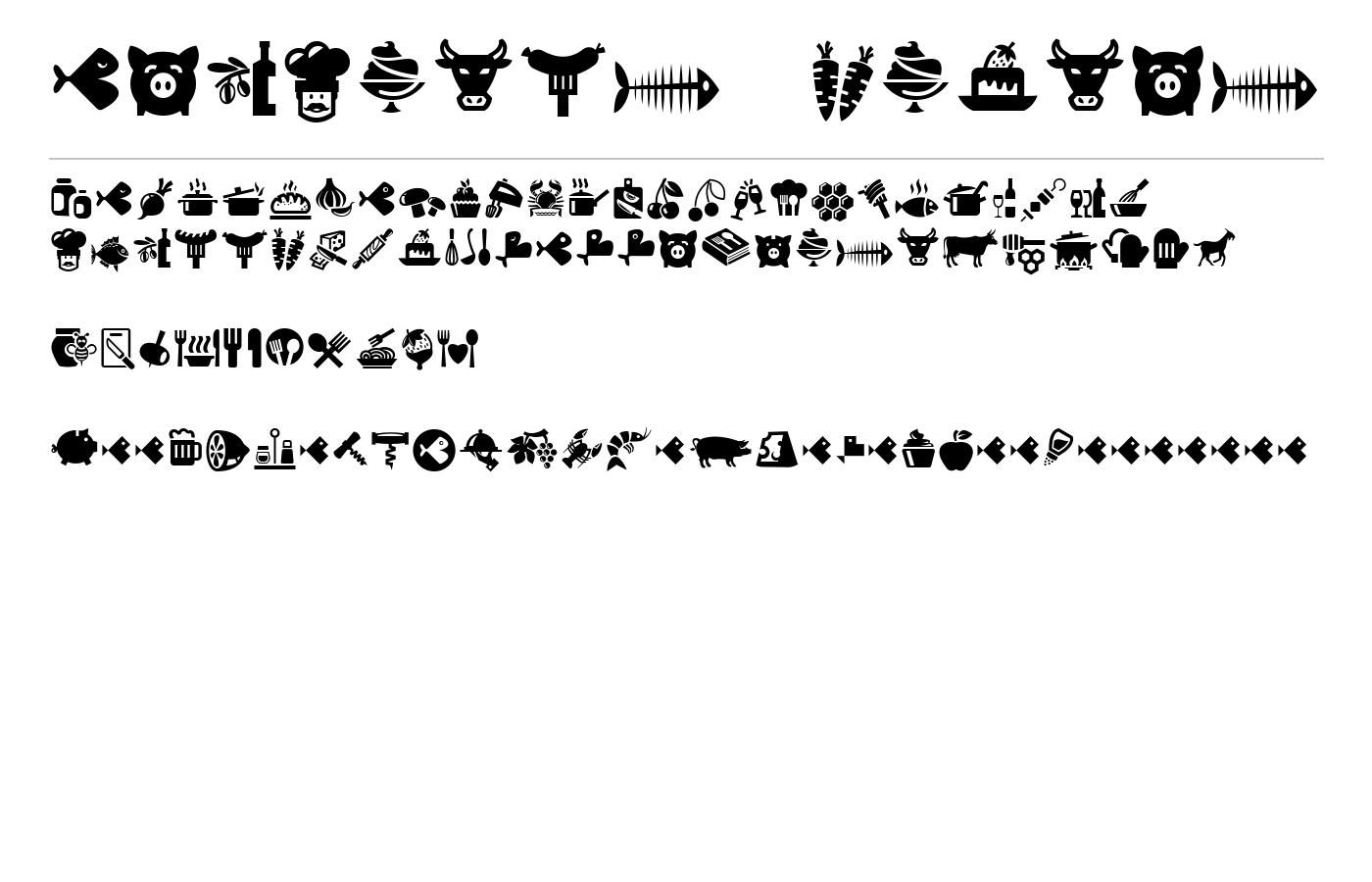
Bocartes Fritos is a playful pictogram-style font featuring bold, solid icons themed around food, cooking, and dining. Its heavy, compact shapes make it ideal for creating fun, attention-grabbing visuals in menus, restaurant branding, and food packaging. This font works best when used as decorative elements or symbols to add personality and thematic clarity to culinary projects.
About Bocartes fritos Font